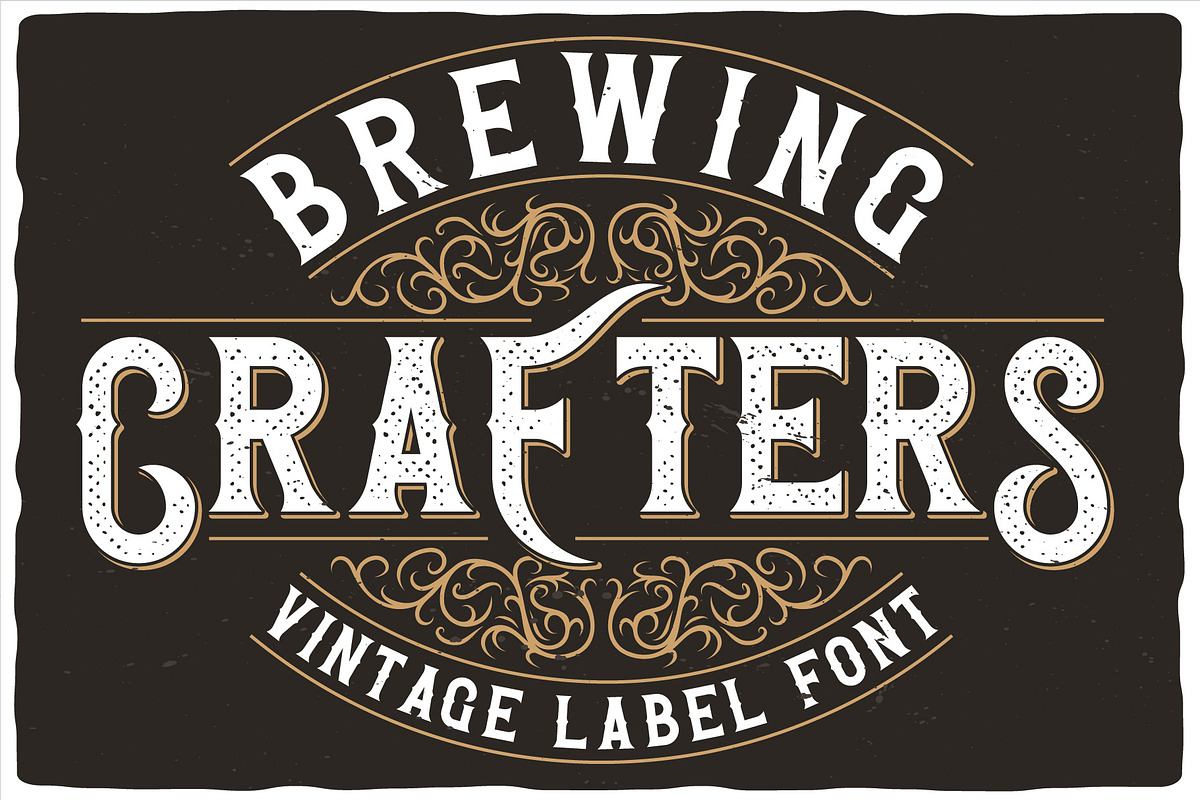
Brewing Crafters Font Free Download is a bold, handcrafted typeface inspired by vintage labels, craft beer branding, and rustic signage. With its textured strokes, classic curves, and slightly rugged charm, this font is perfect for brewery logos, coffee shop menus, artisan packaging, pub signs, and homebrew labels.
It captures the spirit of craftsmanship and small-batch passion—making it ideal for brands that value authenticity and heritage. Whether you're designing for a local roastery, a rustic cafe, or a DIY project, Brewing Crafters delivers warmth, personality, and timeless appeal.
This font performs beautifully in both print and digital formats, especially when paired with earthy palettes and vintage textures.